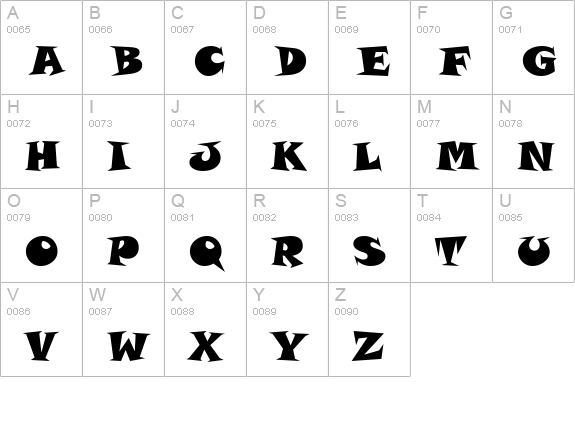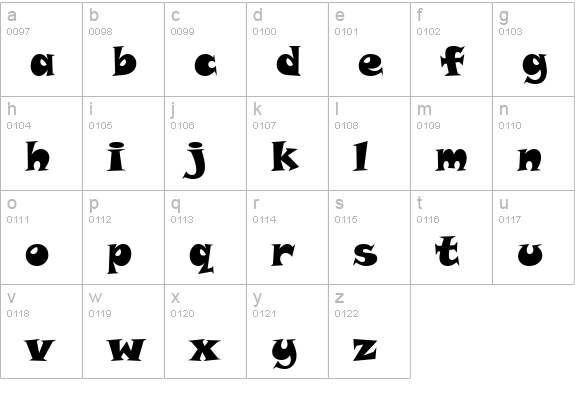
Disney Comic Font Details
The Disney Comic font is a whimsical and playful typeface that captures the magic and charm of classic Disney comic books. With its bold and friendly letterforms, this font is perfect for adding a touch of Disney magic to your projects. Whether you're creating invitations, greeting cards, or posters, the Disney Comic font will bring a smile to anyone's face. Best of all, this delightful font is available for free download at FontsMarket.com. So go ahead and add a sprinkle of Disney magic to your designs with the Disney Comic font today!